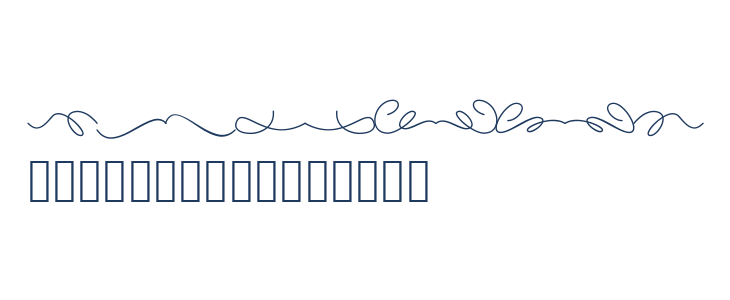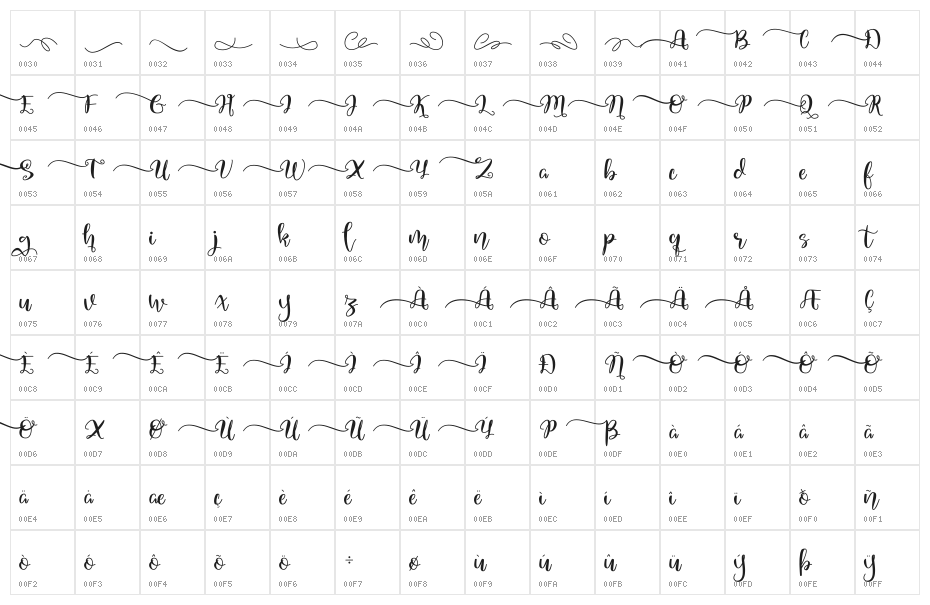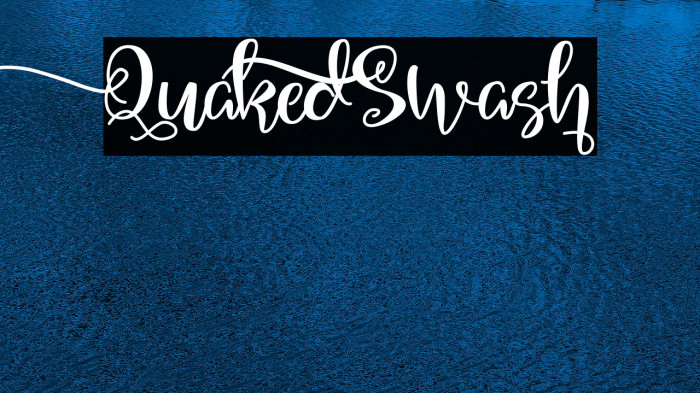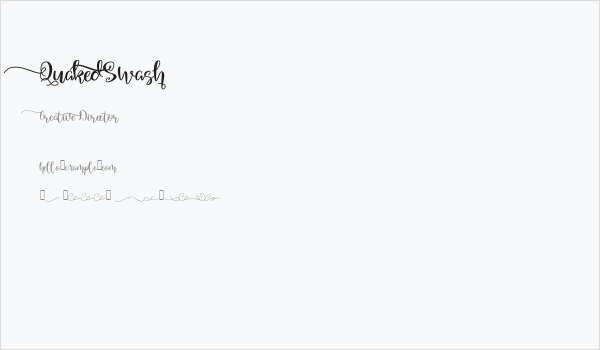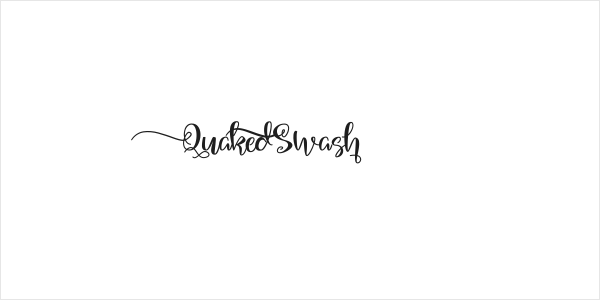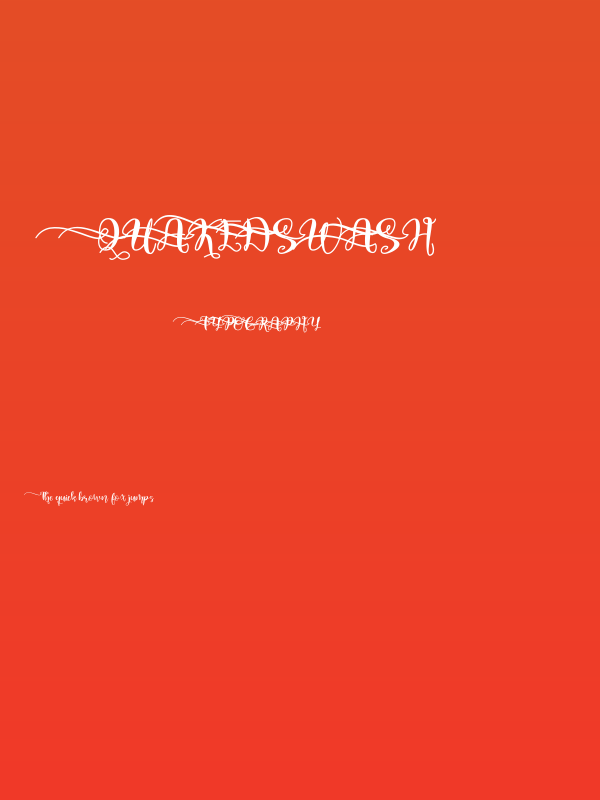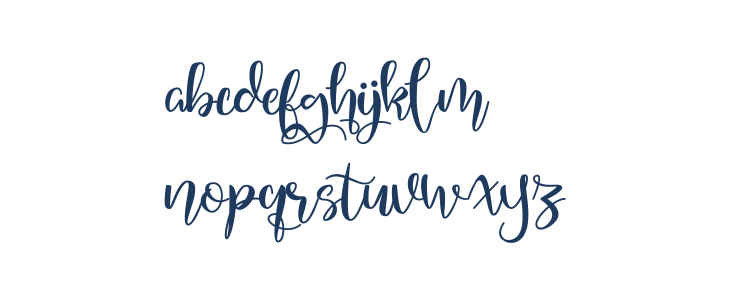
QuakedSwash Font
QuakedSwash Description
This font is an elegant and decorative script style, characterized by its flowing, intricate swashes and loops. The uppercase letters are particularly ornate, with extended flourishes that give a sense of movement and grace. The lowercase letters maintain a consistent style, with smooth curves and a connected script appearance. The font's overall design is highly decorative, making it suitable for artistic and creative projects. It exudes a sense of sophistication and charm, perfect for adding a touch of elegance to any design.
| Proposed Projects | Ideal for wedding invitations, greeting cards, branding, and decorative headlines. |